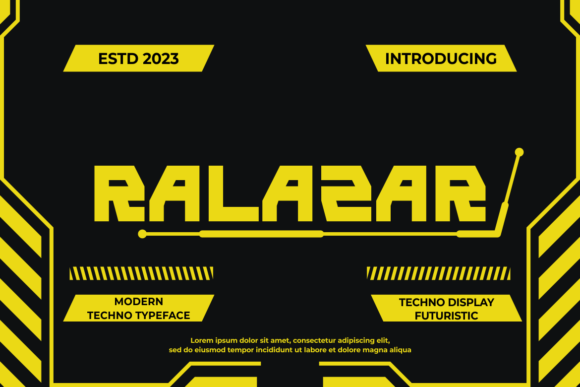
Step into the world of Ralazar, a font that exudes boldness and modernity like no other. Designed to dance across your screens with unmatched clarity, it's the perfect choice for leaving a lasting impression in the digital realm.
Prepare to be mesmerized by its crisp lines and captivating curves, crafted with meticulous precision to ensure stunning results on high-resolution displays. Ralazar is not just a font; it's a statement of style, a tool that empowers you to turn your creative visions into eye-catching realities.
Whether you're crafting captivating headlines, designing elegant logos, or weaving enchanting stories through text, Ralazar has the versatility to adapt seamlessly to your every need. Its bold presence commands attention, while its modern aesthetic adds a touch of sophistication to any project.
Imagine your words taking flight, soaring above the ordinary and leaving an unforgettable mark on the digital landscape. With Ralazar as your font, every creation becomes a masterpiece, a testament to your discerning taste and unwavering commitment to excellence.
Unleash the power of Ralazar today and witness how it transforms your designs into works of art. Let your creativity shine brighter than ever before, captivating audiences with a font that speaks volumes.